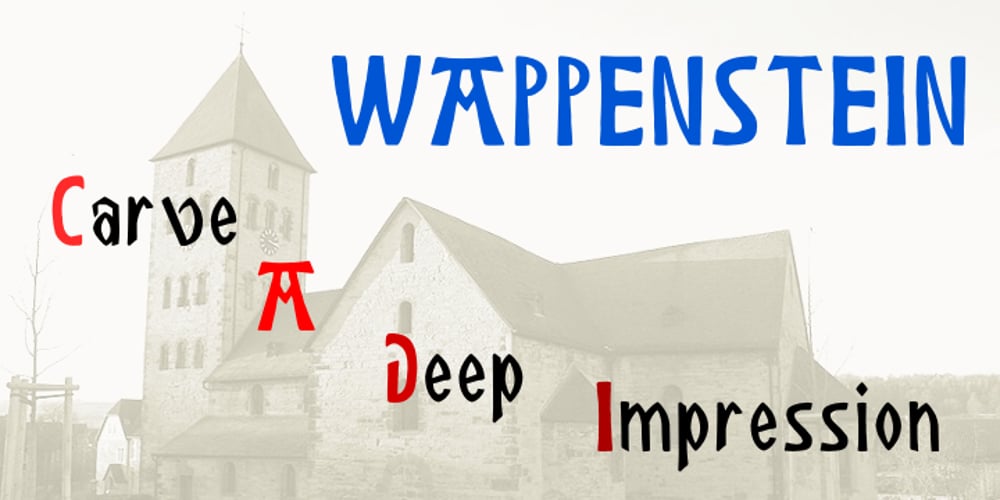
Wappenstein Font Family was designed by Shane Brandes and published by Proportional Lime. Wappenstein contains 1 styles and family package options. The font Wappenstein was inspired by the carving on a memorial stone located in Paderborn, Germany. The stone was an Epitaph of the Brenkener family, and the carver is known as the “Meister des Brenkener Familienepitaphs”. The carving, dating to 1562, currently is curated by the Erzbischöfliches Diözesanmuseum in the city of Paderborn and was originally in the Brenkener Pfarr Kirche. A Wappenstein is a stone that contains a carving of the heraldic achievement of a person.